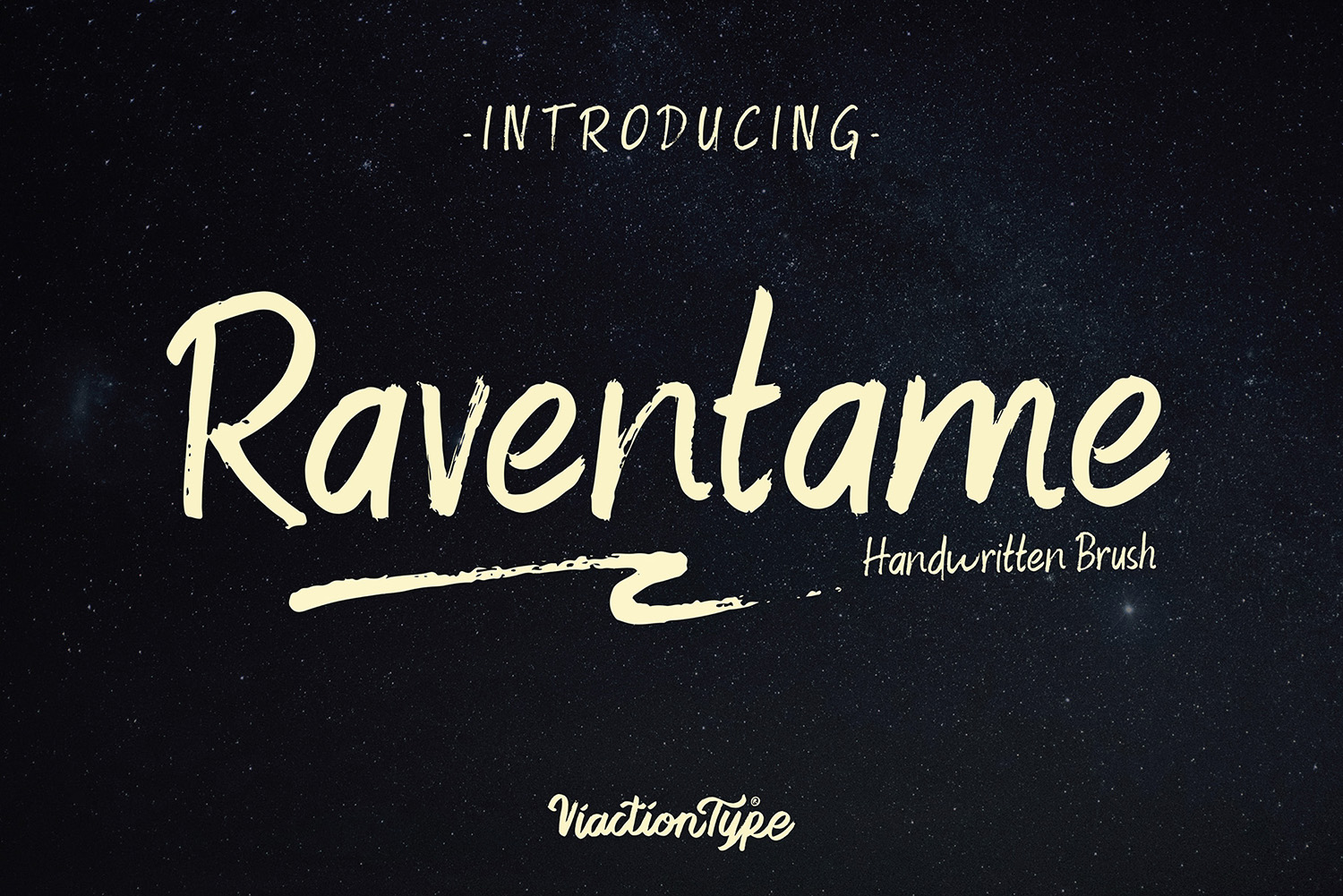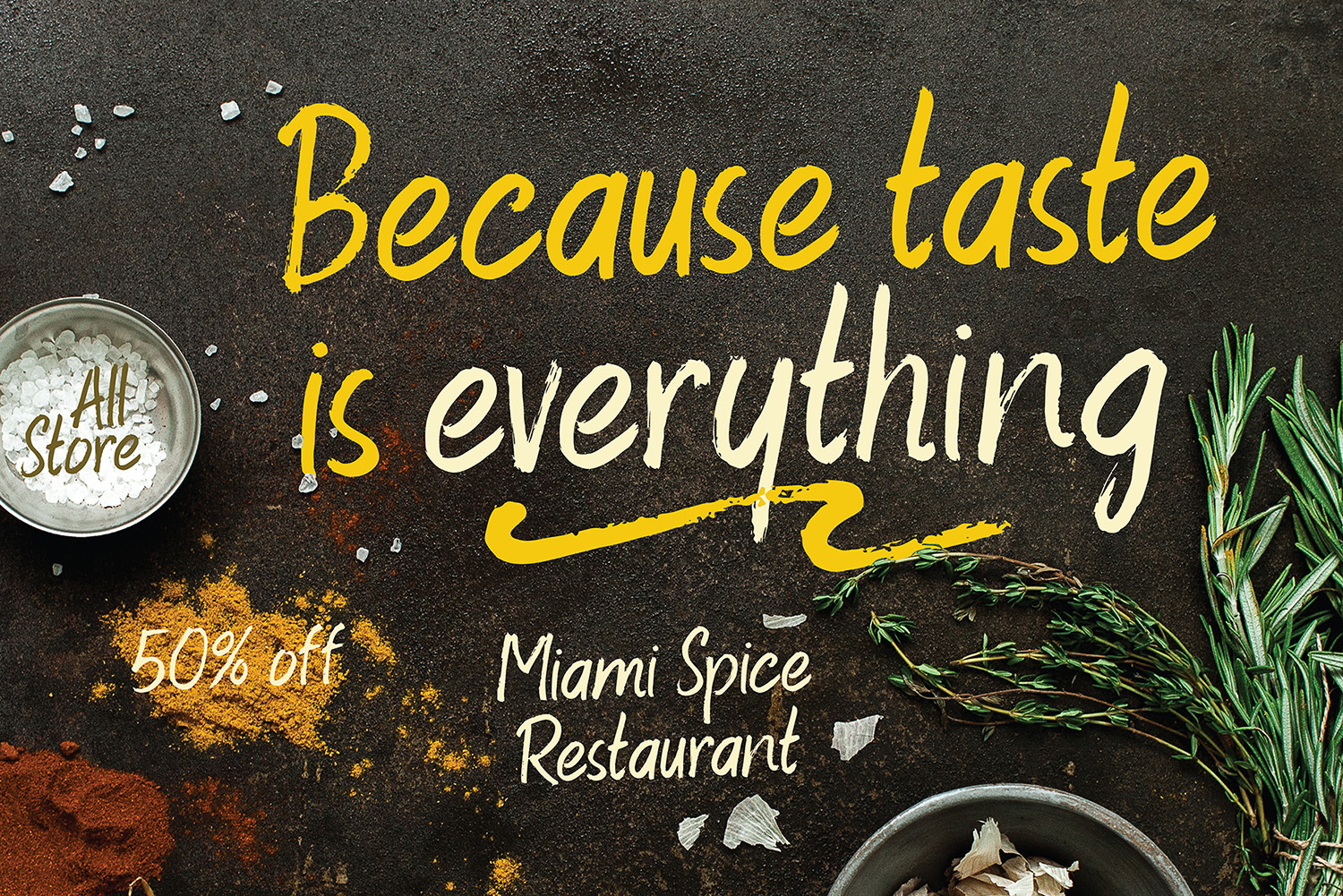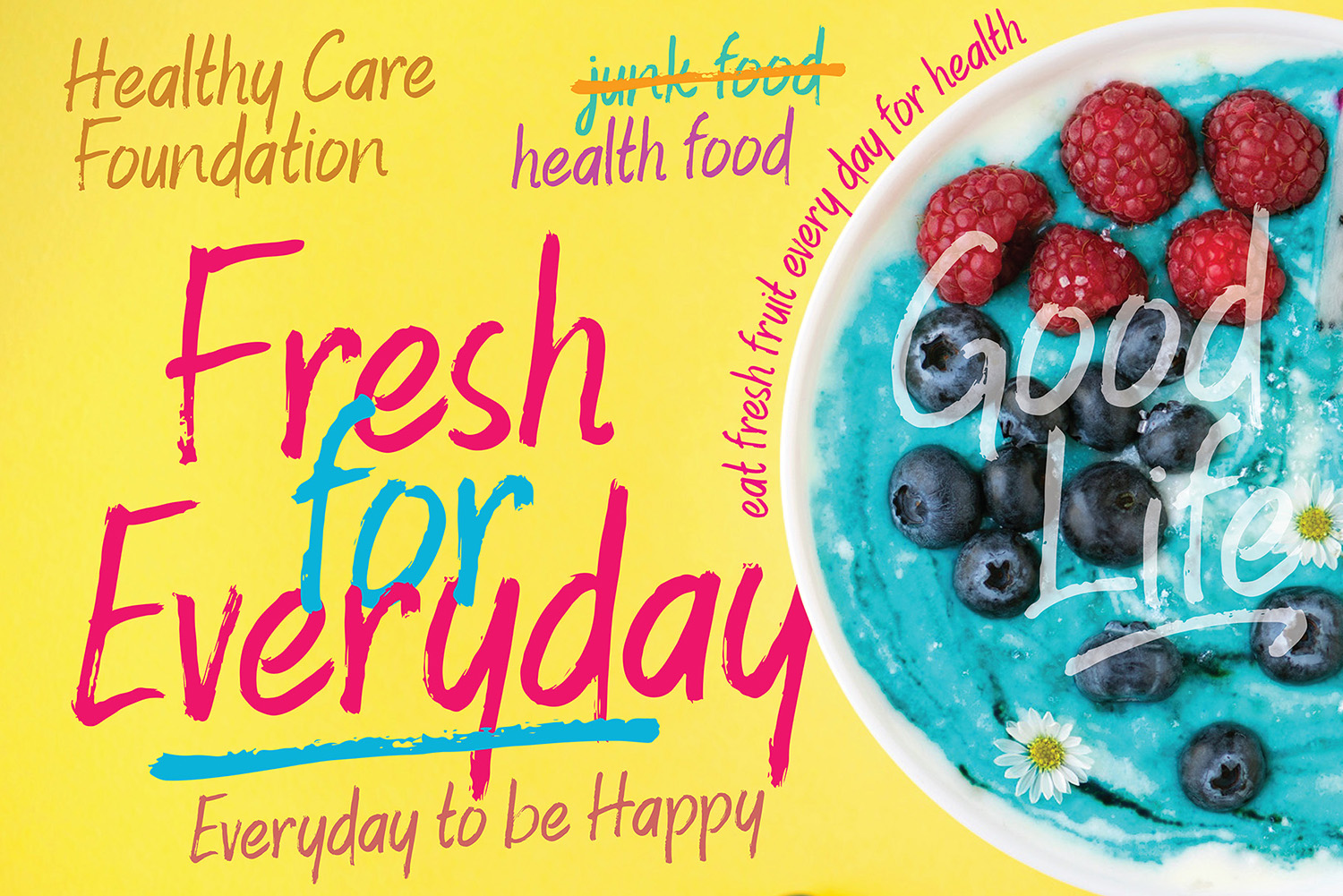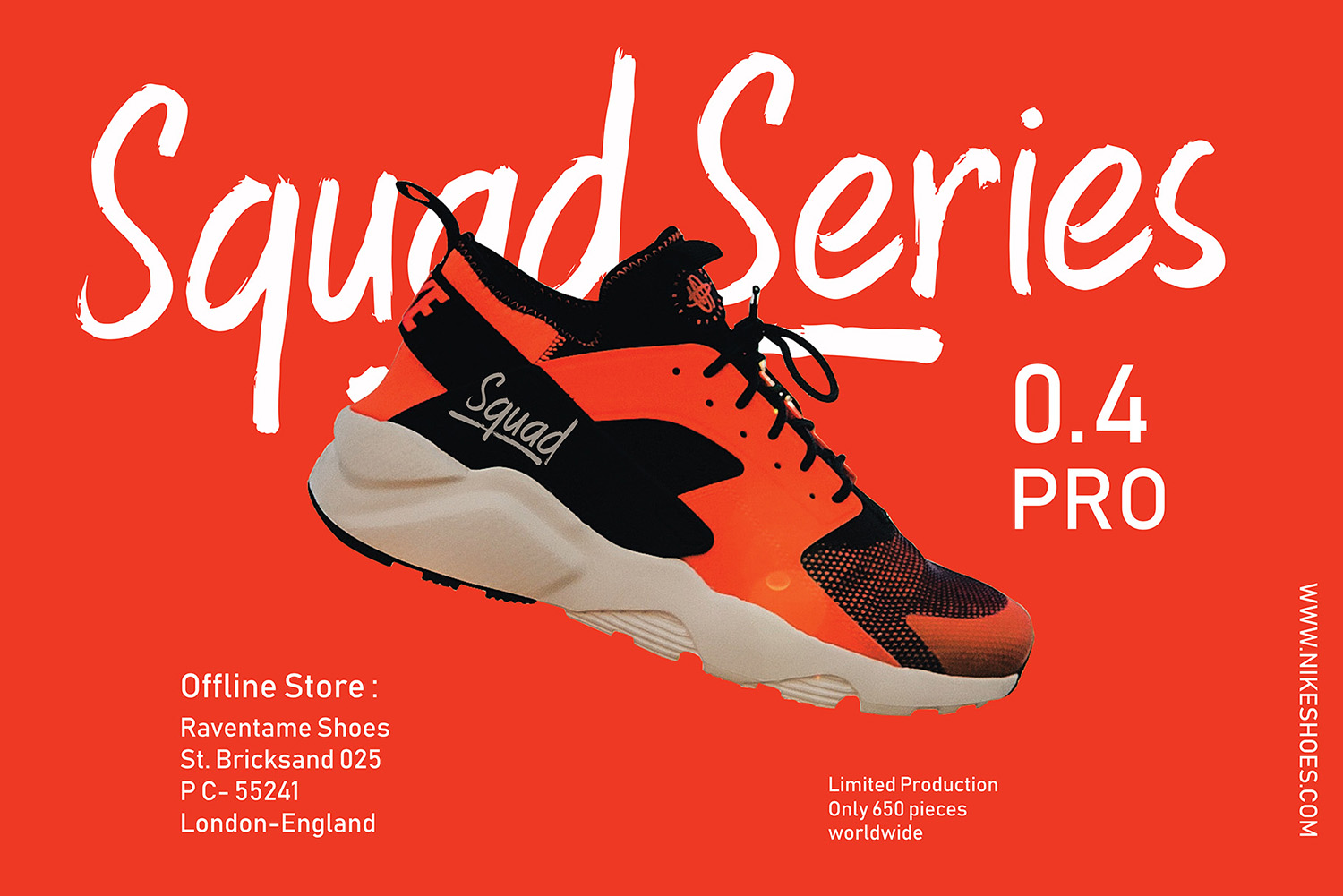
Raventame Free Font
Raventame Free Font is an interesting handwritten font that mimics writing with a brush and has an elegant style. This font is well suited for creating various projects that require a scripted font. Use this font to create memorable posters, wedding invitations, greeting cards, branding, flyers, t-shirt and pillow prints, and more. If you like it don’t forget to check out the full version.
Author: Viaction Type Co